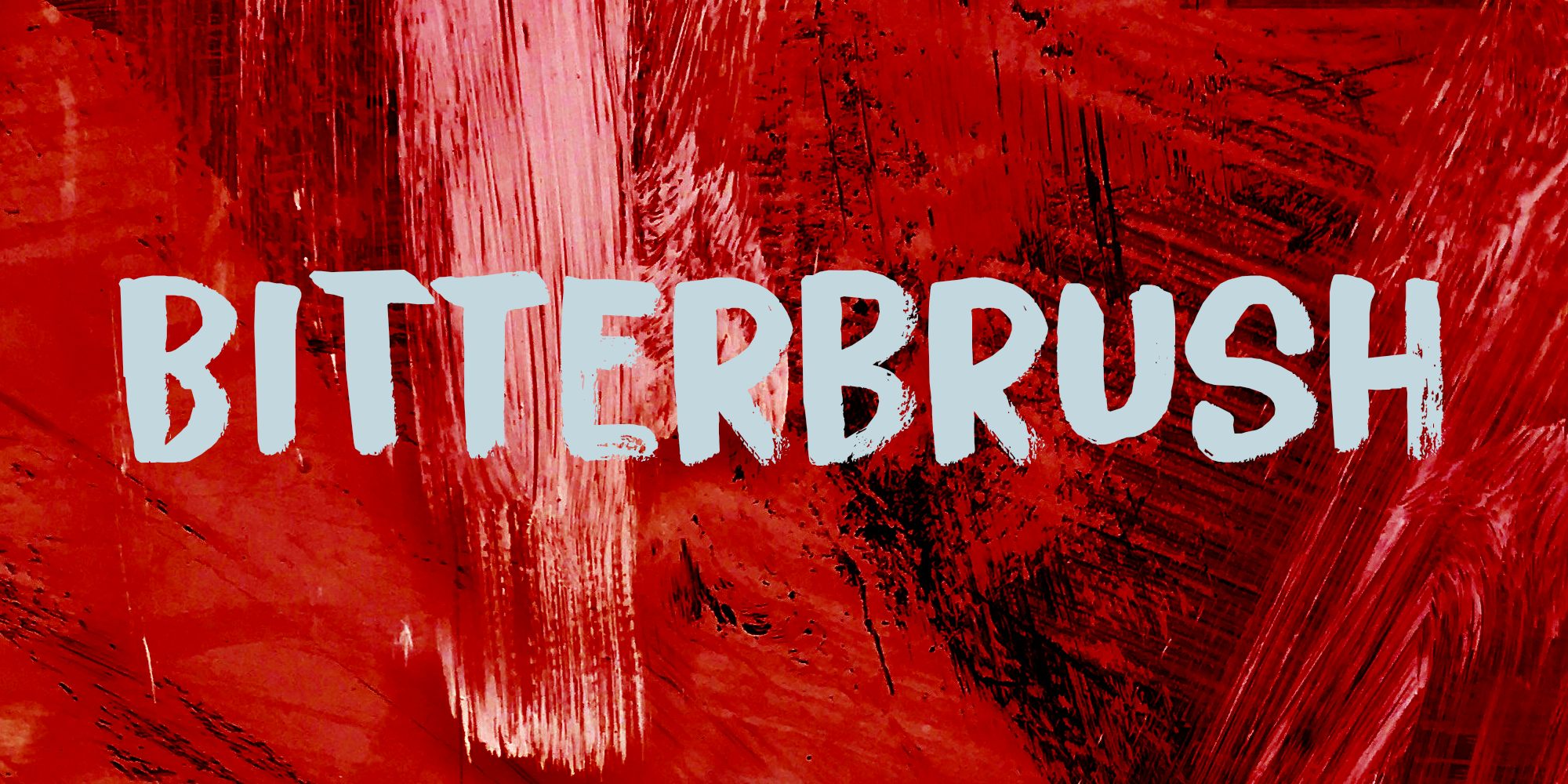
Bring rugged charm and handwritten authenticity to your designs with Bitterbrush Font Free Download. This expressive brush script font captures the spirit of the wild west with bold strokes and an untamed personality. Perfect for rustic branding, outdoor-themed projects, product packaging, poster designs, and anything that needs a handcrafted, adventurous touch.
Bitterbrush Font combines fluid motion with organic textures, creating a natural and energetic visual rhythm. It works beautifully in headlines, logos, greeting cards, and even social media posts where you want to add a bit of bold character and a lot of attitude.
If your design calls for freedom, movement, and a wild-hearted style, Bitterbrush Font is your go-to. Download Bitterbrush Font for free today and let your typography speak with a bold, hand-painted voice.